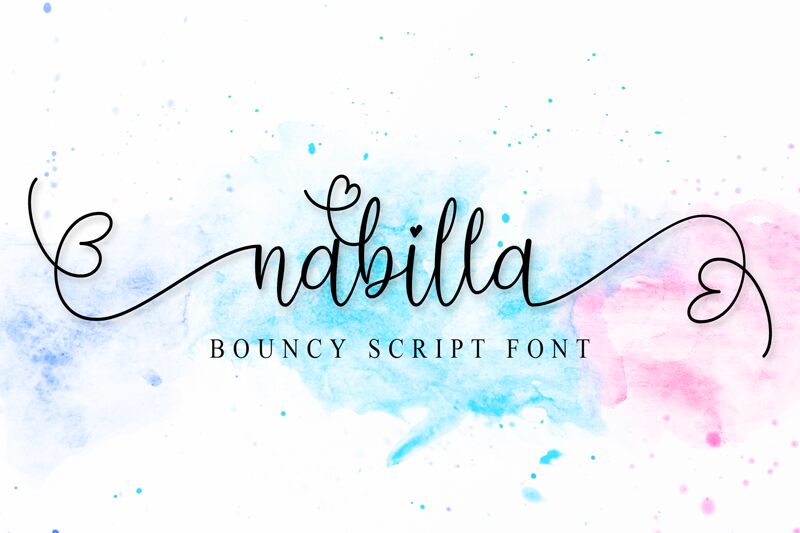
Nabilla is a delightful semi-light font that brings a touch of whimsy to any project. Designed by Doehantz Studio's Abduhan Fikhri, this font boasts lovely handwritten letters that are sure to capture the heart of any reader. Its playful yet elegant style makes it perfect for greeting cards, invitations, and other stationery. Nabilla's soft curves and delicate strokes also lend themselves well to branding materials, such as logos and packaging designs. With its versatile nature and charming appeal, Nabilla is the ideal choice for anyone in search of a unique font that exudes warmth and personality.